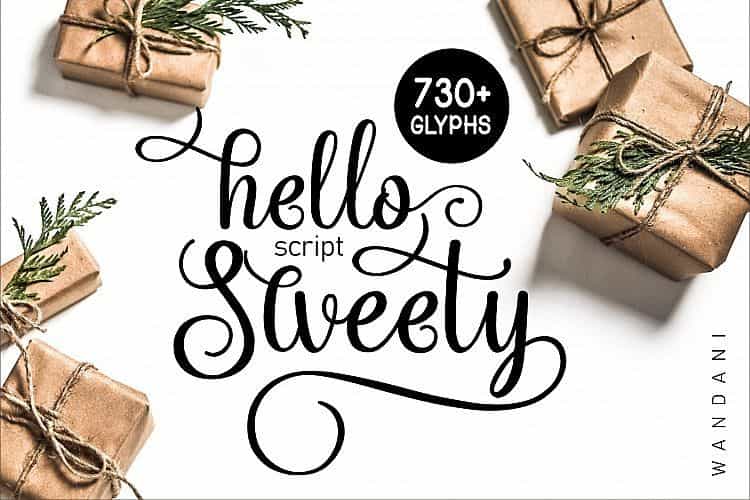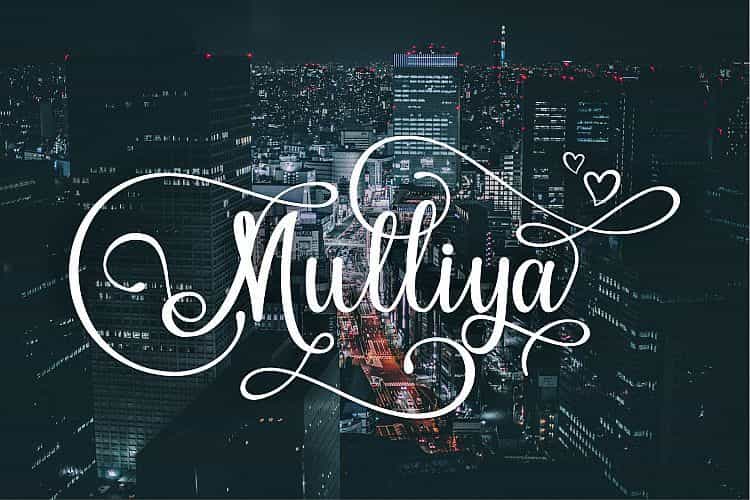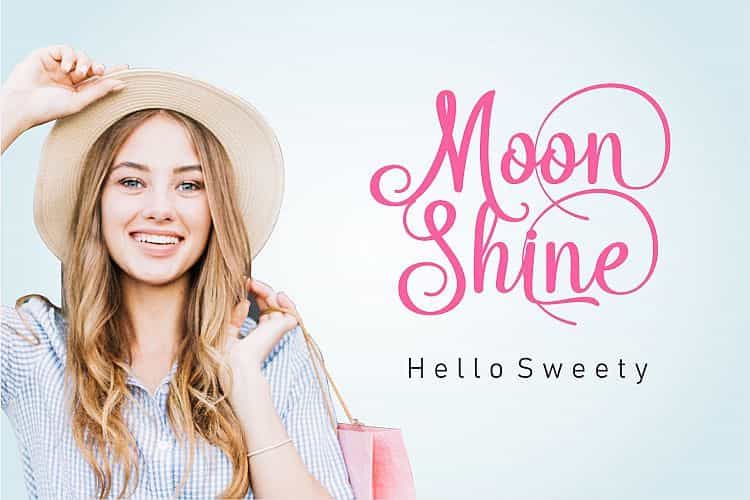
Discover Hello Sweety Script Font, part of the Calligraphy collection—a versatile and unique font perfect for adding a personal touch to your projects. Download it for free and enjoy crafting designs with style, from invitations to social media posts. This font is available exclusively for personal use, giving you the freedom to create without limits. Unlock your creativity with Hello Sweety Script Font today!
Introducing the Hello Sweety Font! This is a one of kind, nice and modern calligraphy font. The characteristic of this font is the handwriting style that makes it a very good choice for any occasion. The Wakandan is made and shared by Wandani.